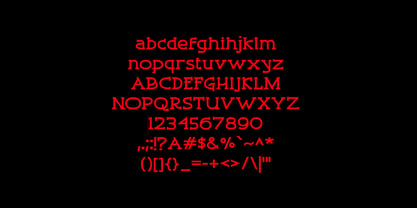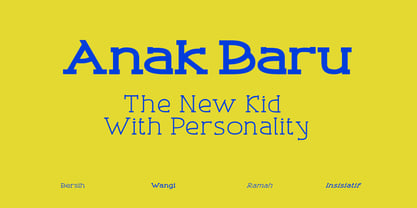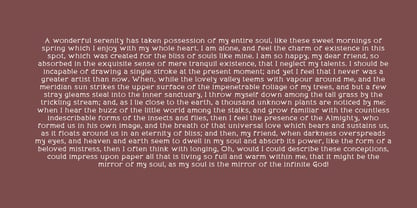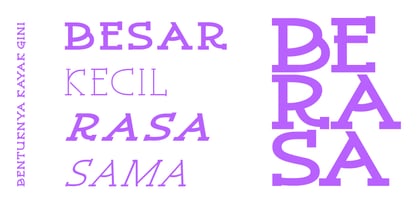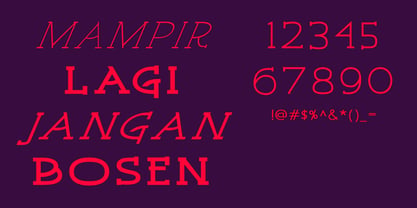
Anak Baru
The Anak Baru Font Family was designed by Dwi Asmoro and published by Asmoro Pabrik Huruf. Anak Baru contains 8 styles and family package options. More about this family
Anak Baru is a typeface that started from a simple, personal curiosity: can a font feel both laid-back and structured at the same time?
I designed it by building a system—my own algorithm—to simplify each letterform without making it feel cold or unorganic. It’s not based on strict geometry, but on what felt natural as I refined each curve, stroke, and rhythm. The result is a typeface that doesn’t try too hard, yet still stands with clarity and presence.
The name Anak Baru means “the new kid” in Indonesian, and in a way, that’s the spirit of this font. It’s fresh, unpredicted, sometimes don't know how to behave in new environment. You can use it in settings that are serious or casual, and it adapts without losing its voice.
Whether you're designing posters, social media graphics, branding materials, or editorial layouts, Anak Baru gives your work a friendly, modern tone with enough versatility to handle different moods. It works great on its own or paired with more geometric or serif typefaces.
This type family includes eight styles: Regular, Italic, Bold, Bold Italic, Medium, Medium Italic, Light, and Light Italic. Each style was crafted to express unique personality, while offering options for hierarchy and contrast.
Anak Baru wasn’t made to follow trends—it was made to be functional, personal, and a little different. I hope you enjoy using it as much as I enjoyed creating it.